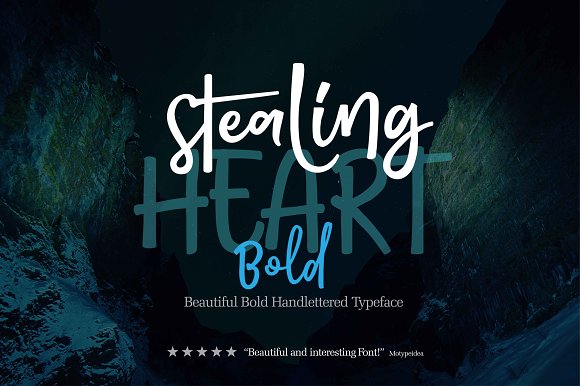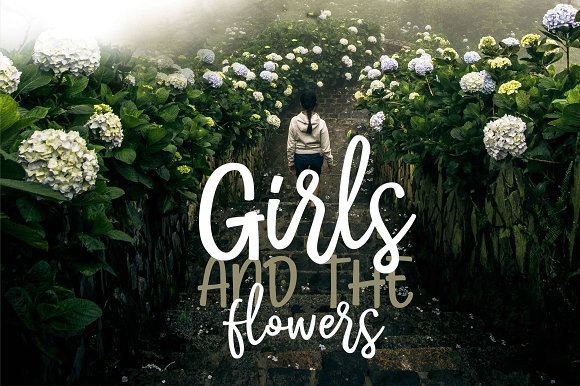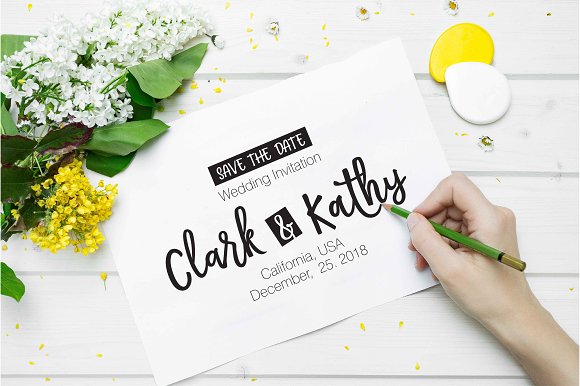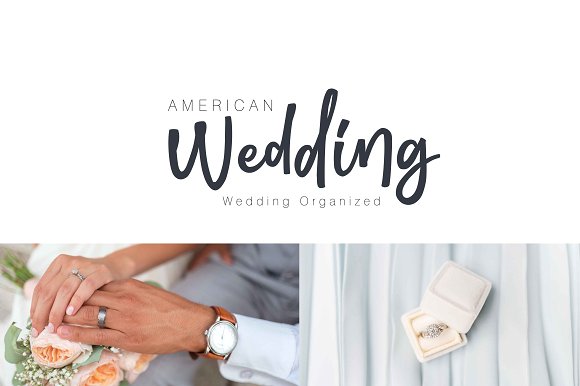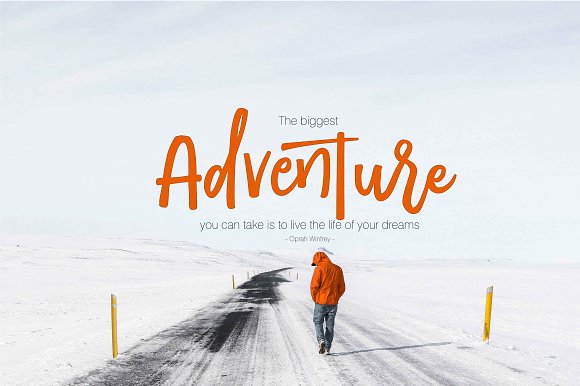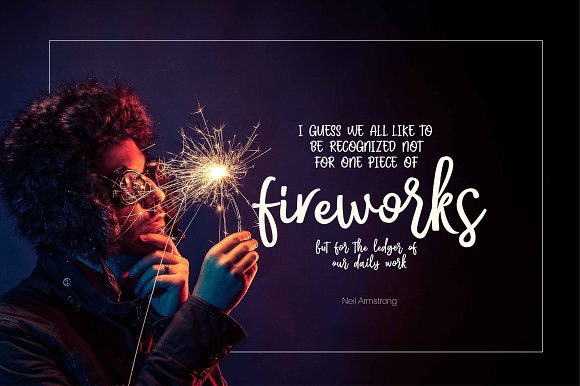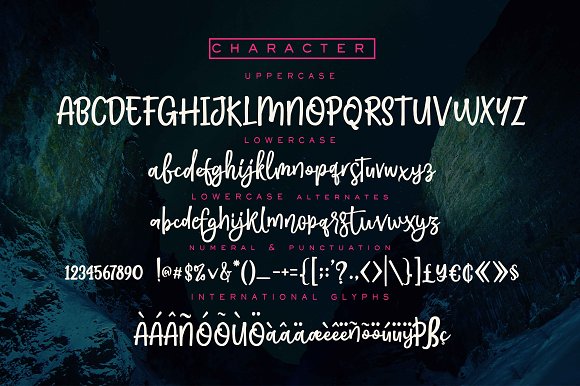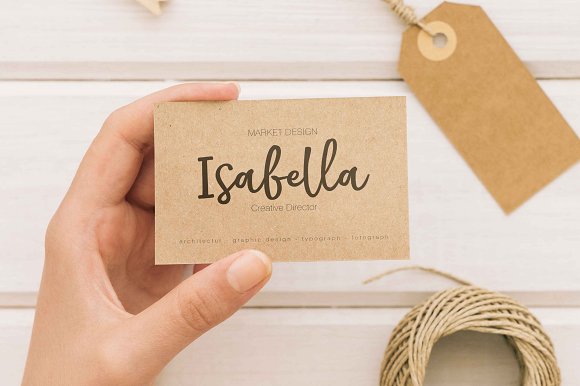
HomeScript FontsStealing Heart Bold Font Script Fonts Stealing Heart Bold Font FacebookXPinterestWhatsApp Stealing Heart Bold Font Poster 2 Stealing Heart Bold Font Poster 3 Stealing Heart Bold Font Poster 4 Stealing Heart Bold Font Poster 5 Stealing Heart Bold Font Poster 6 Stealing Heart Bold Font Poster 7 Stealing Heart Bold Font Poster 8 About Stealing Heart Bold Font Stealing Heart Bold is a modern calligraphy-style typeface. DOWNLOAD ON CREATIVE FABRICAThis font is sold and delivered by Creative Fabrica. Font Canyon may earn a commission if you buy through this link. People also explored Monarchy Initials Fergitta Font Shoebop Wyvern Boho Font Obadiah Pro Font Juliant Font Weltschmerz Inangel Font 305 0 TagsStealing Heart Bold Font Previous articleSouthside FontNext articleSuthejo Font LEAVE A REPLY Cancel reply Comment: Please enter your comment! Name:* Please enter your name here Email:* You have entered an incorrect email address! Please enter your email address here Website: Save my name, email, and website in this browser for the next time I comment. Personal Use Free Royal Bengal Tiger Personal Use Free Read more about this font Font Slice Personal Use Free Read more about this font Scarlove Personal Use Free Read more about this font Thruster Personal Use Free Read more about this font BLOG Elegant Wedding Invitation Fonts – Handwritten & Script Fonts Elegant Wedding Invitation Fonts Your wedding day is one of the most important moments of your life, and every detail matters—including your invitation design. Our... Fonts That Capture the Spirit of New York City How to Install and Use Fonts on Windows, macOS, and Web Projects 5 Fonts That Will Dominate Design Trends in 2026